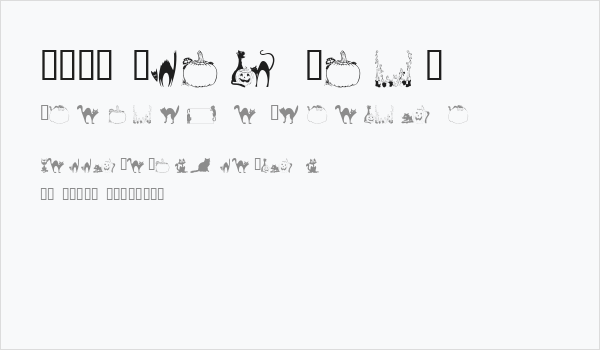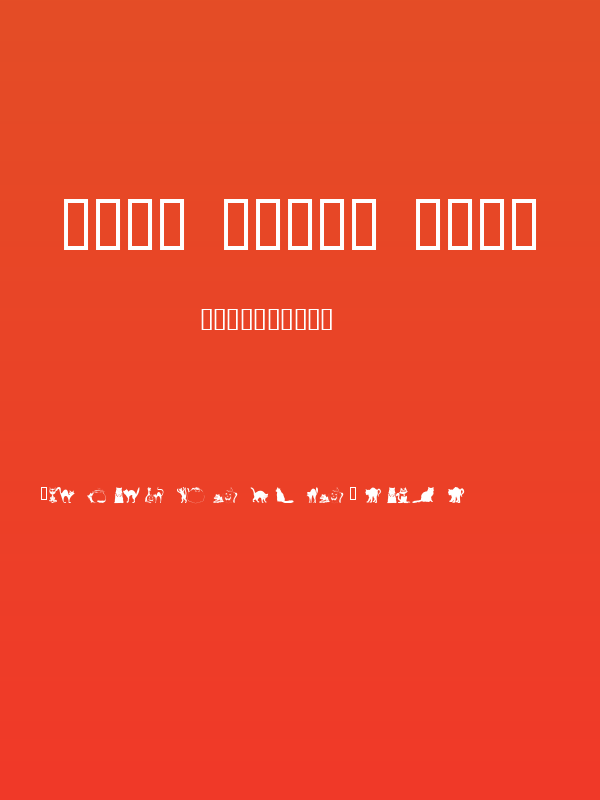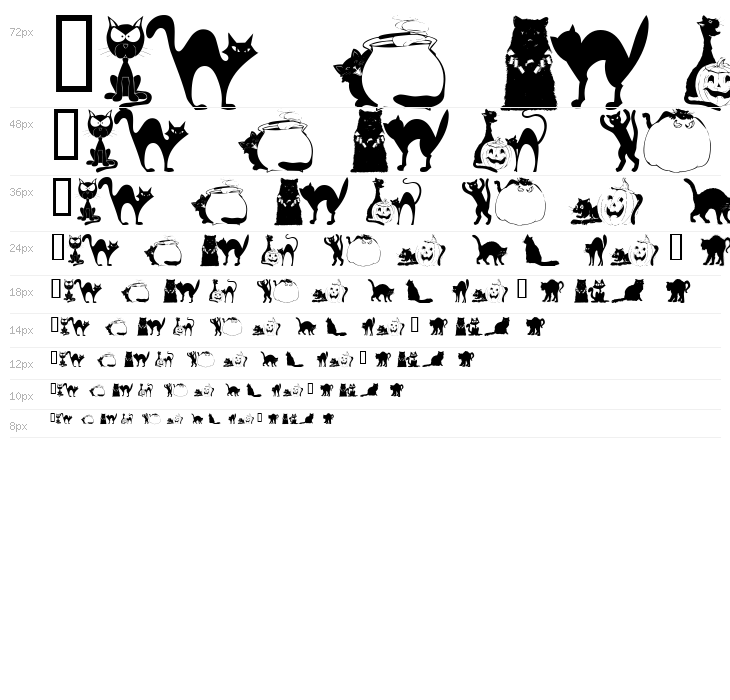
101! Black KatZ Font
101! Black KatZ Description
A decorative dingbat font featuring various playful and spooky cat illustrations, some with Halloween-themed elements like pumpkins. Each character is represented by a unique cat pose or scene, rendered in solid black silhouettes with whimsical details.
| Overall Style | Decorative, Playful, Thematic |
| Use Case | Decorative elements, Themed graphics, Borders, Icons |
| Proposed Projects | Halloween invitations, children's party flyers, themed crafts, decorative borders, scrapbooking, and playful branding. |